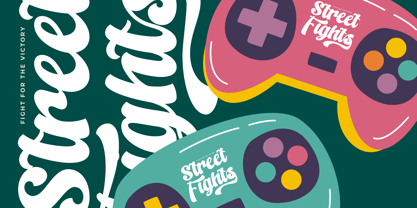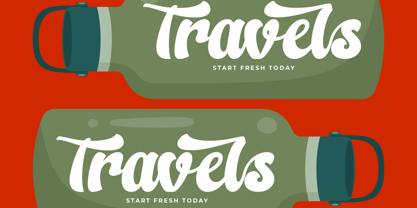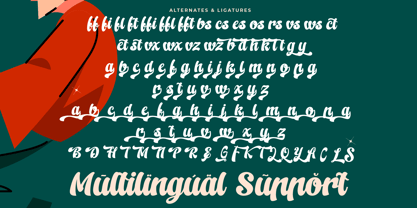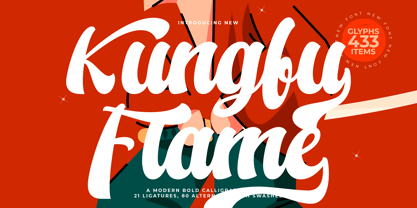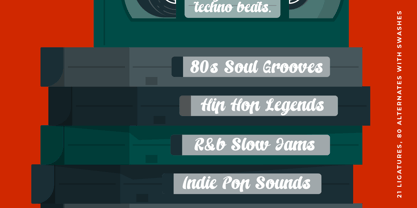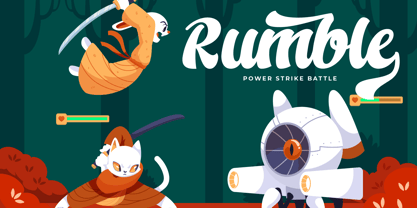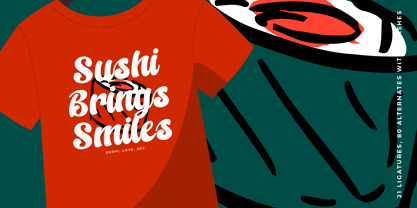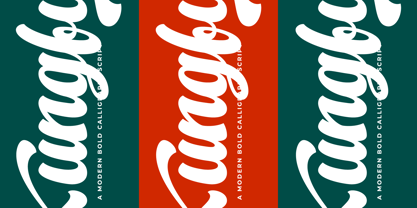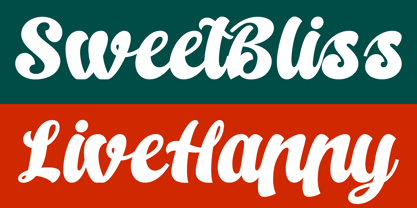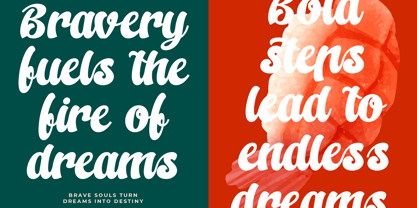
Kungfu Flame
The Kungfu Flame Font Family was designed by Heru Utama Putra and published by Timelesstype Studio. Kungfu Flame contains 2 styles and family package options.
Kungfu Flame - Modern Bold Calligraphy , from Timelesstype , Suitable for any projects such as: logos, branding projects, homeware designs, product packaging, mugs, quotes, posters, shopping bags, t-shirts, book covers, name card, invitation cards, greeting cards, label, photography, watermark, special events, and all your other luxury and beautiful projects that need a Luxury Serif taste.